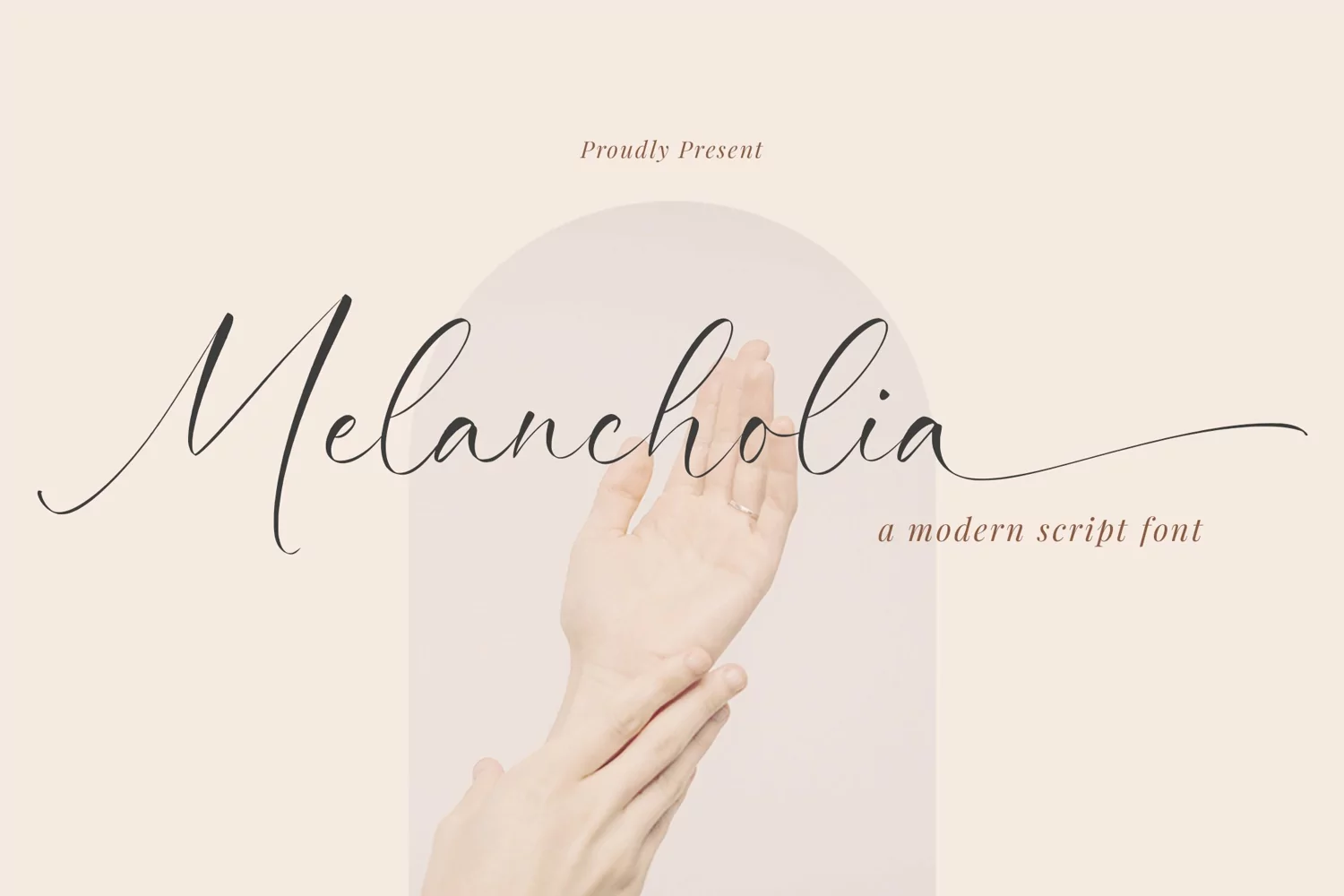
Melancholia - Handwritten Script font
Melancholia
Proudly Present, Melancholia
Melancholia A Handwritten script Font , which was created with great care and specially created for you 😊
Melancholia is perfect for product packaging, branding project, megazine, social media, wedding, or just used to express words above the background.
Melancholia Font Features premium :
• Extra set Ligature swash